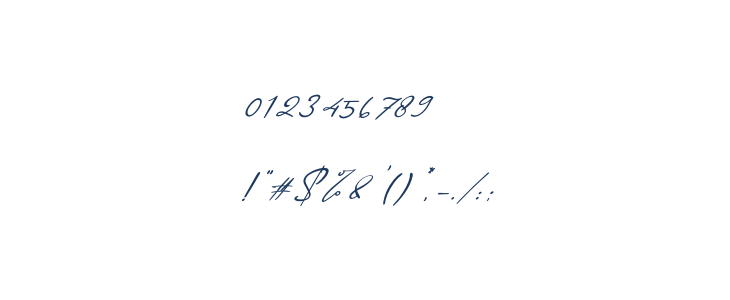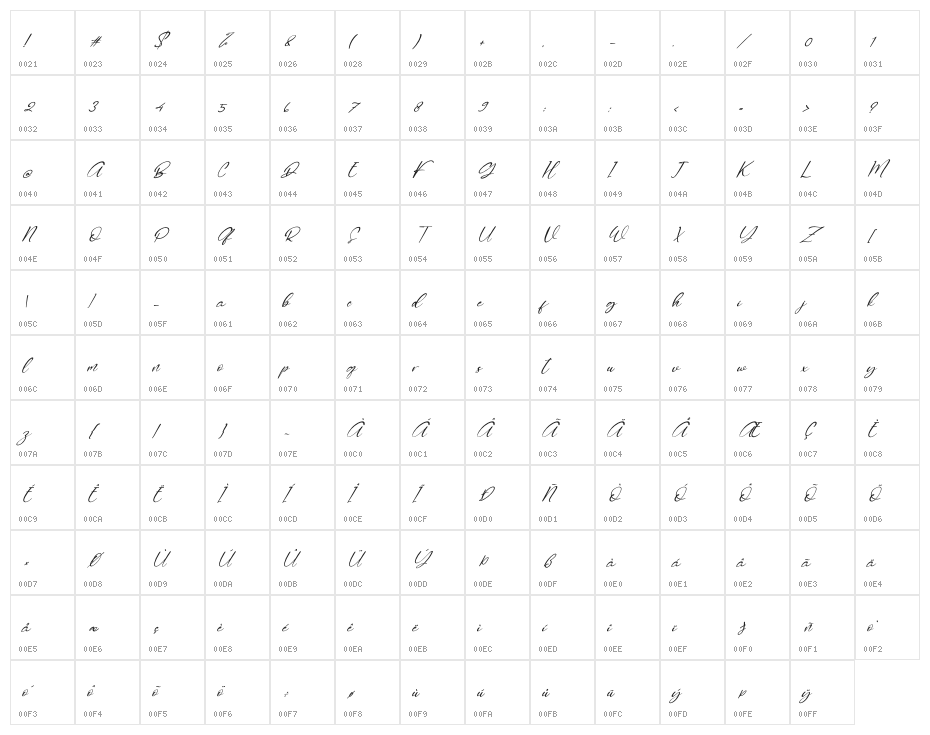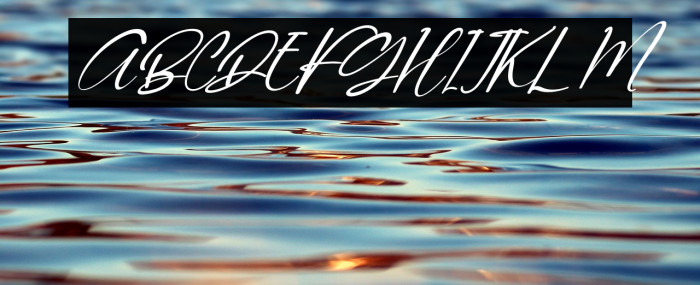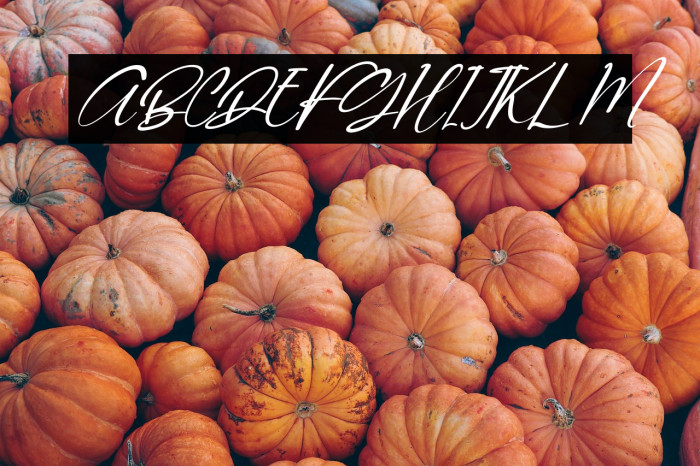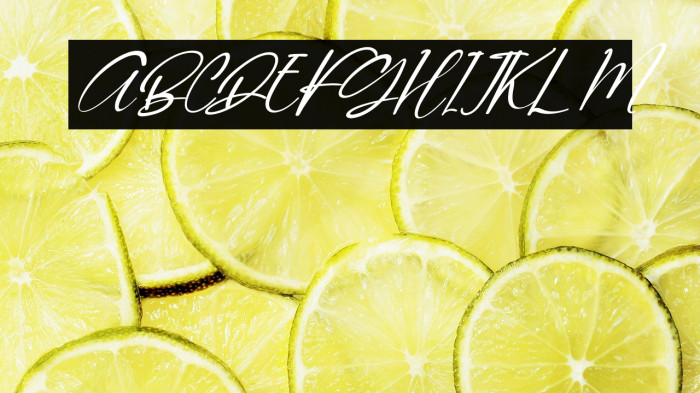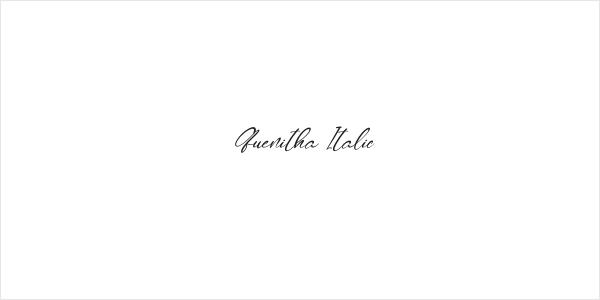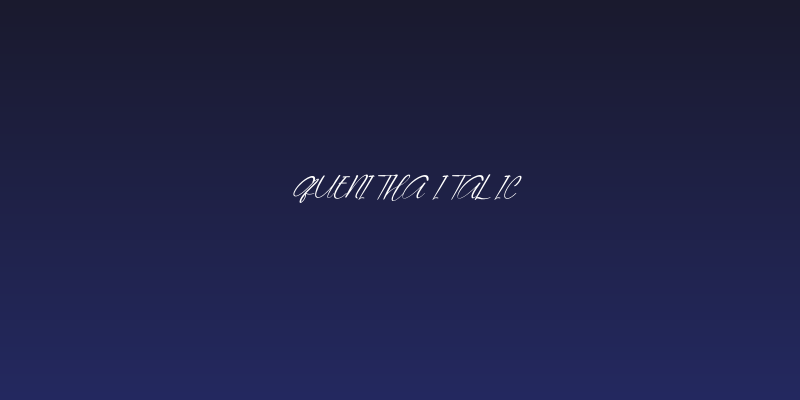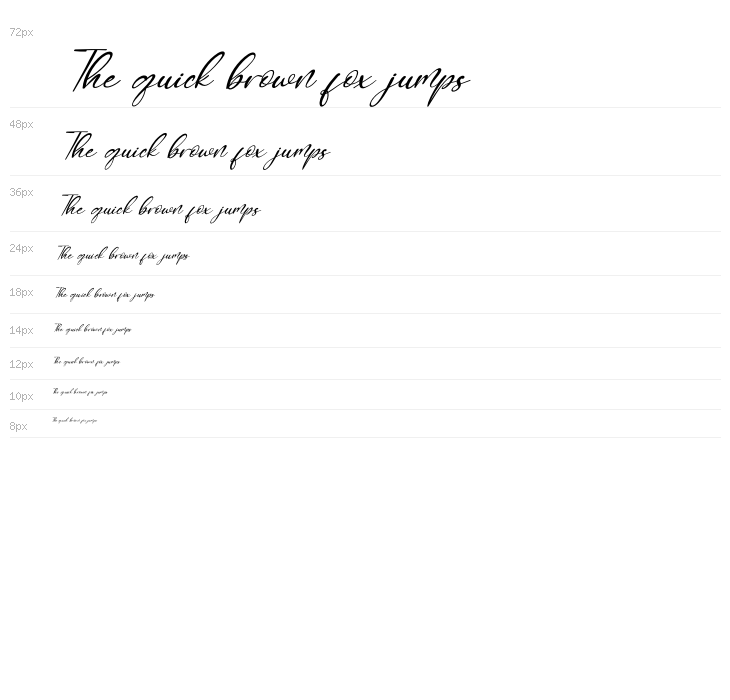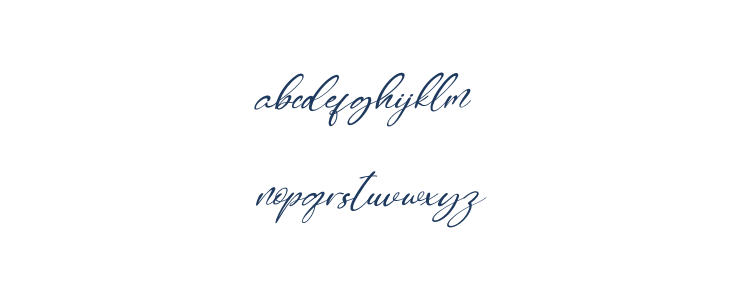
Quenitha Italic Font
Quenitha Italic Description
This elegant script font features flowing, cursive letterforms with a distinct slant, giving it a sophisticated and graceful appearance. The strokes are smooth and connected, with a consistent rhythm that enhances readability while maintaining an artistic flair. The uppercase letters are bold and prominent, while the lowercase letters are more delicate, creating a harmonious balance. The numerals and special characters are crafted with the same attention to detail, ensuring a cohesive look across all elements. This font exudes a sense of elegance and refinement, making it ideal for formal invitations, branding, and decorative purposes.
| Use Case | Invitations, Branding, Decorative |
| Proposed Projects | Ideal for wedding invitations, elegant branding, greeting cards, and decorative projects. |